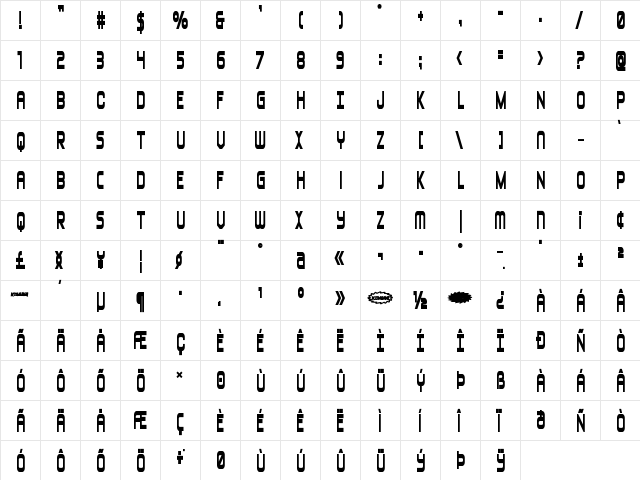
Blizzard Shaft Heavy Regular
Design Context for Blizzard Shaft Heavy Typeface
Blizzard Shaft Heavy offers clean, dependable letterforms without strong stylistic allegiance, making it a practical choice for designers who need flexibility.